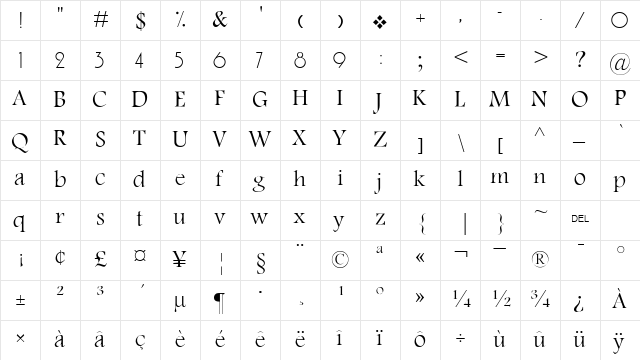
Ah-moharram-light Regular Font Preview
Ah-moharram-light Regular
Design Context for Ah-moharram-light Typeface
Ah-moharram-light takes a measured approach to typography — its balanced proportions and neutral character make it a reliable workhorse for both digital and print work. Its slender proportions lend an understated elegance to any composition.